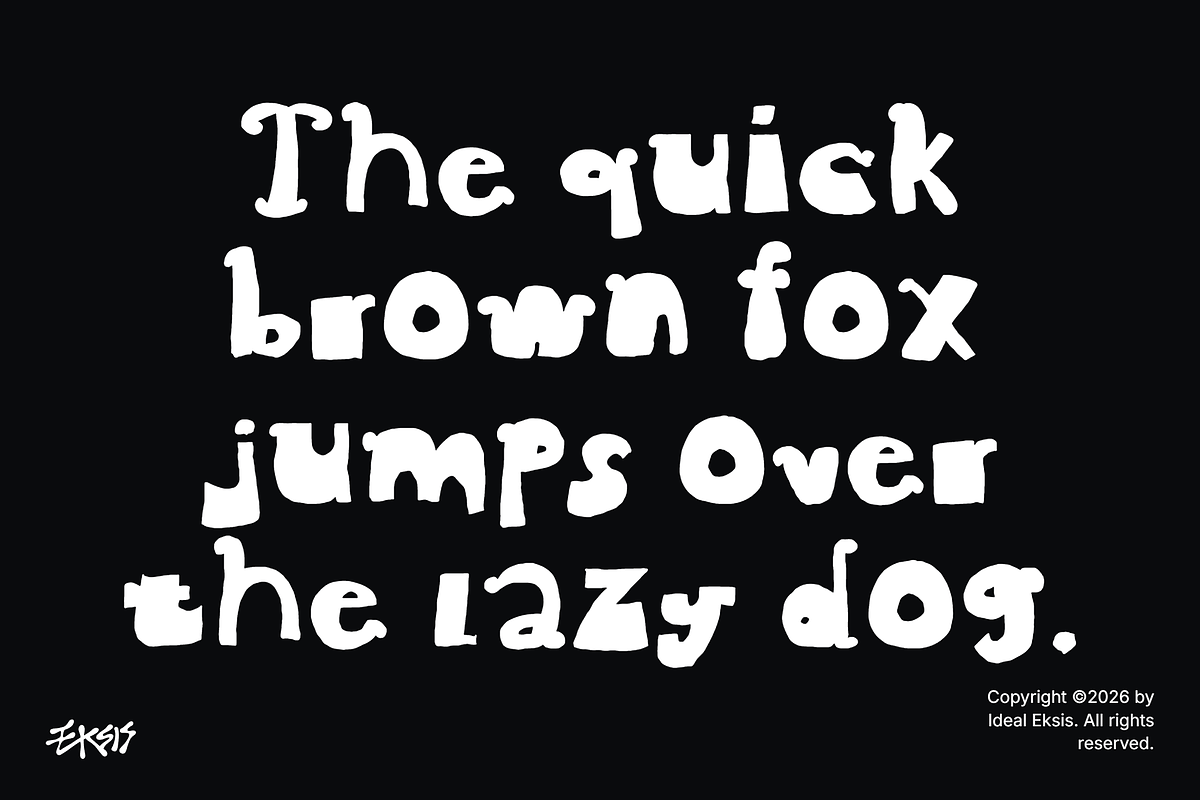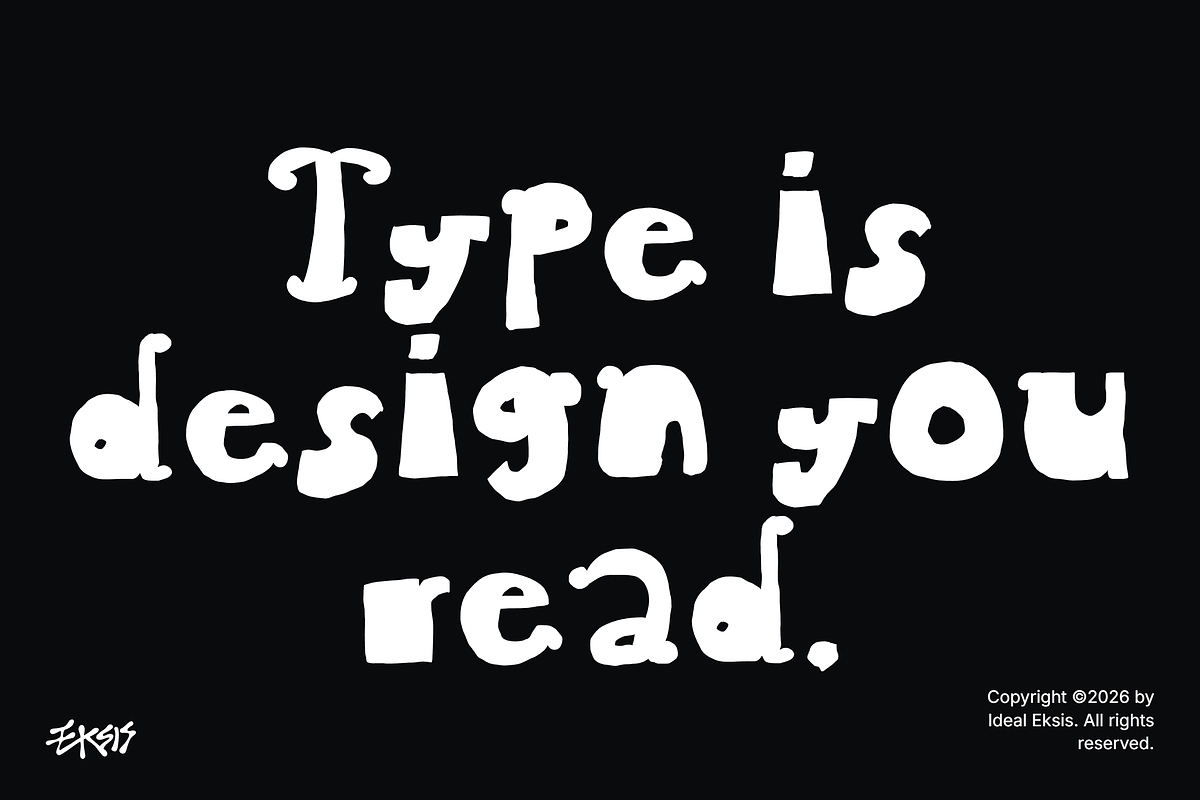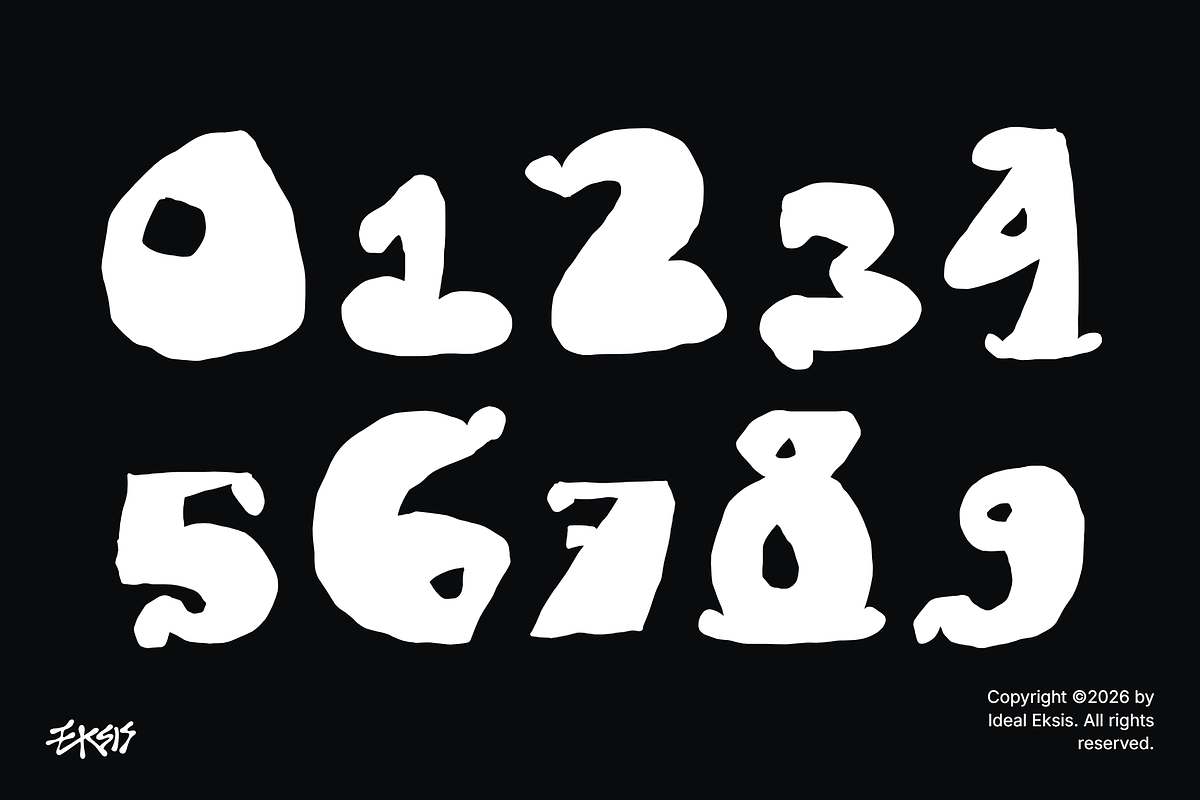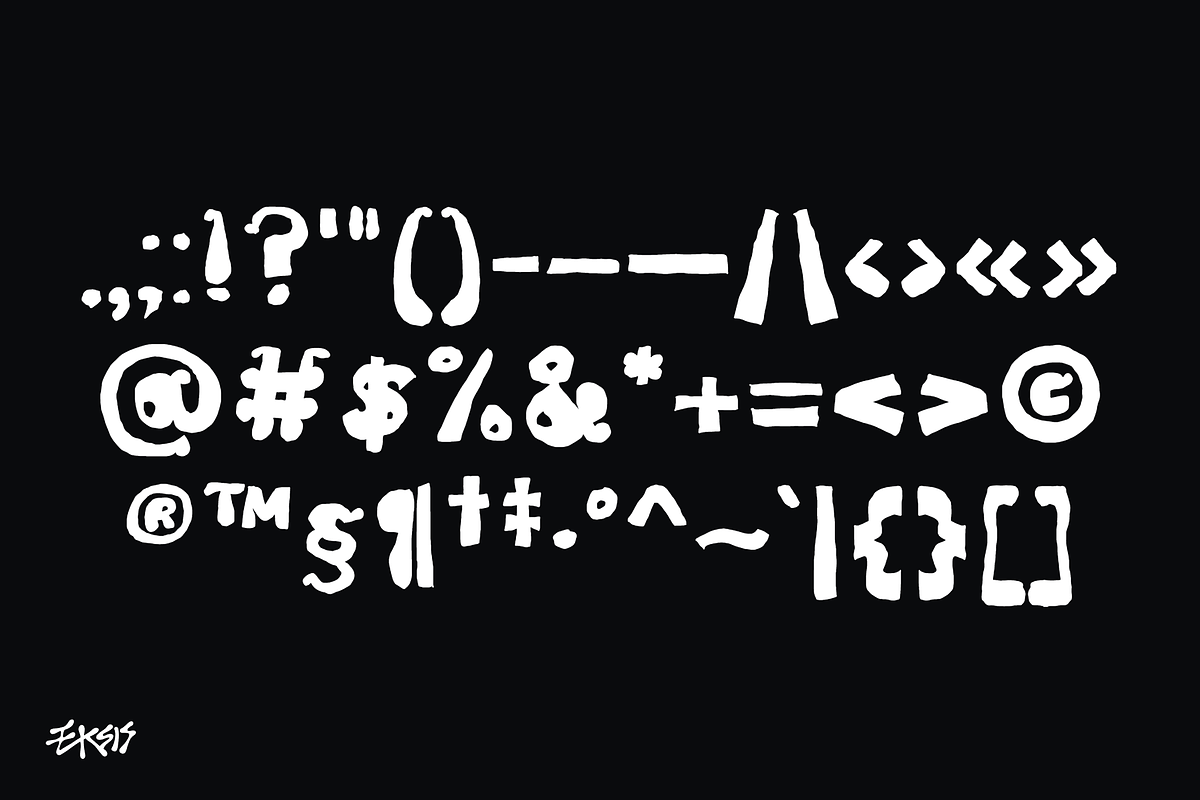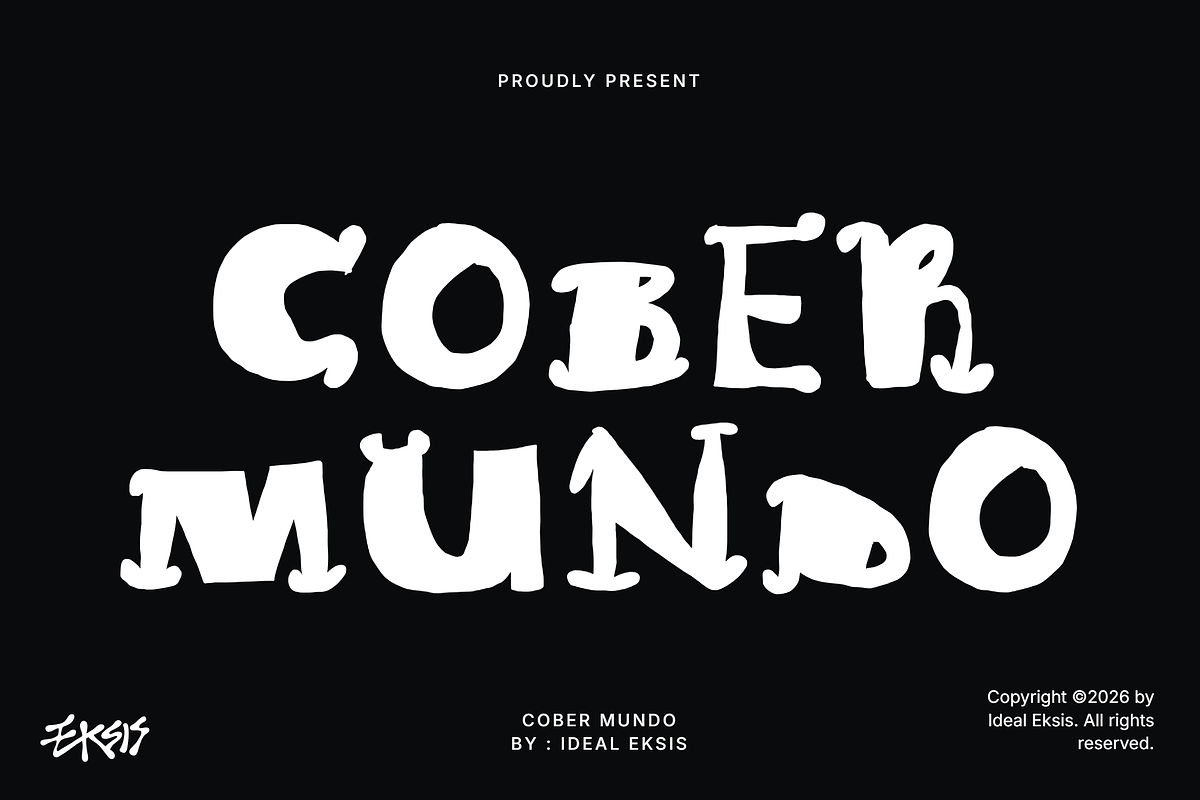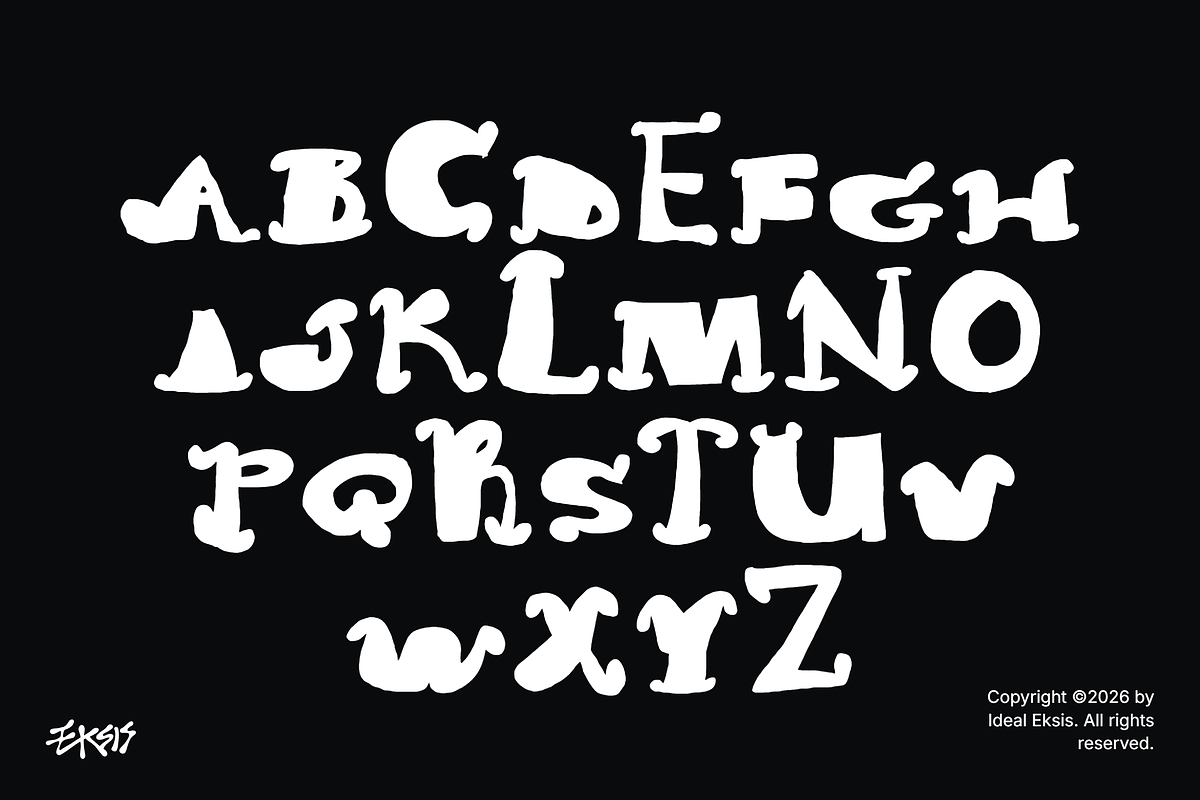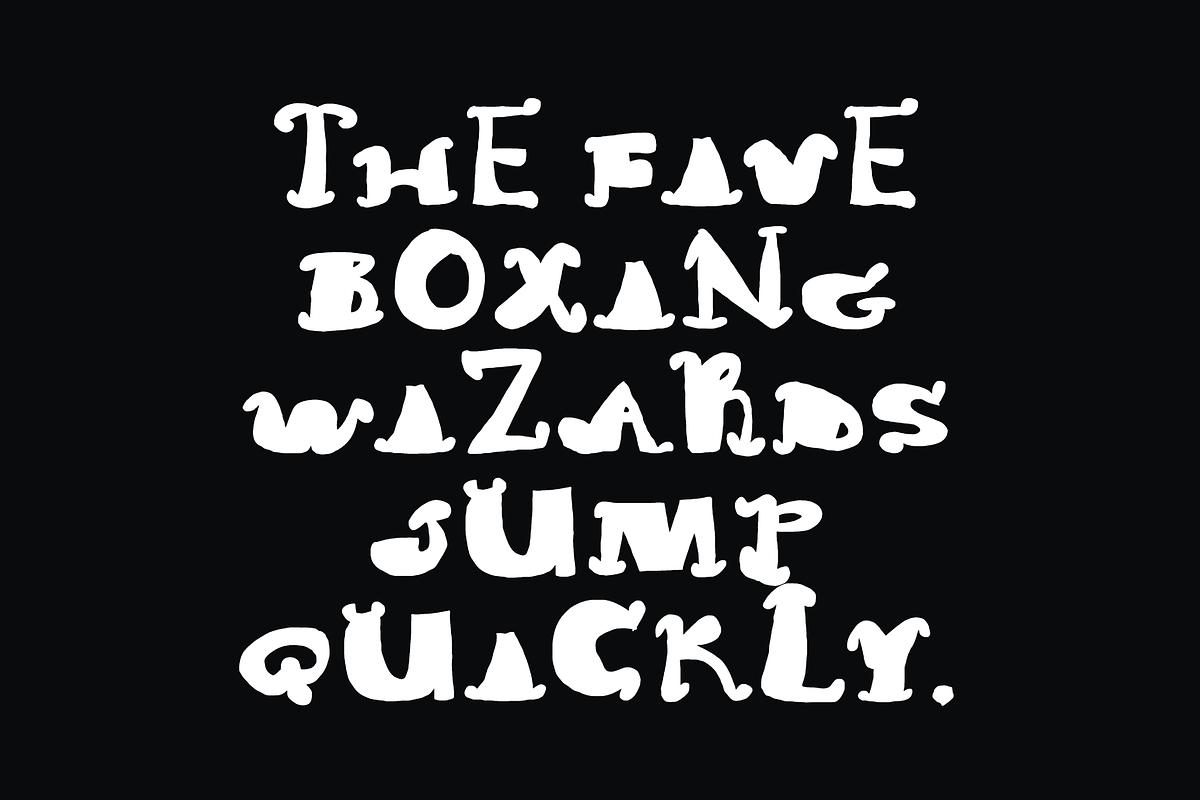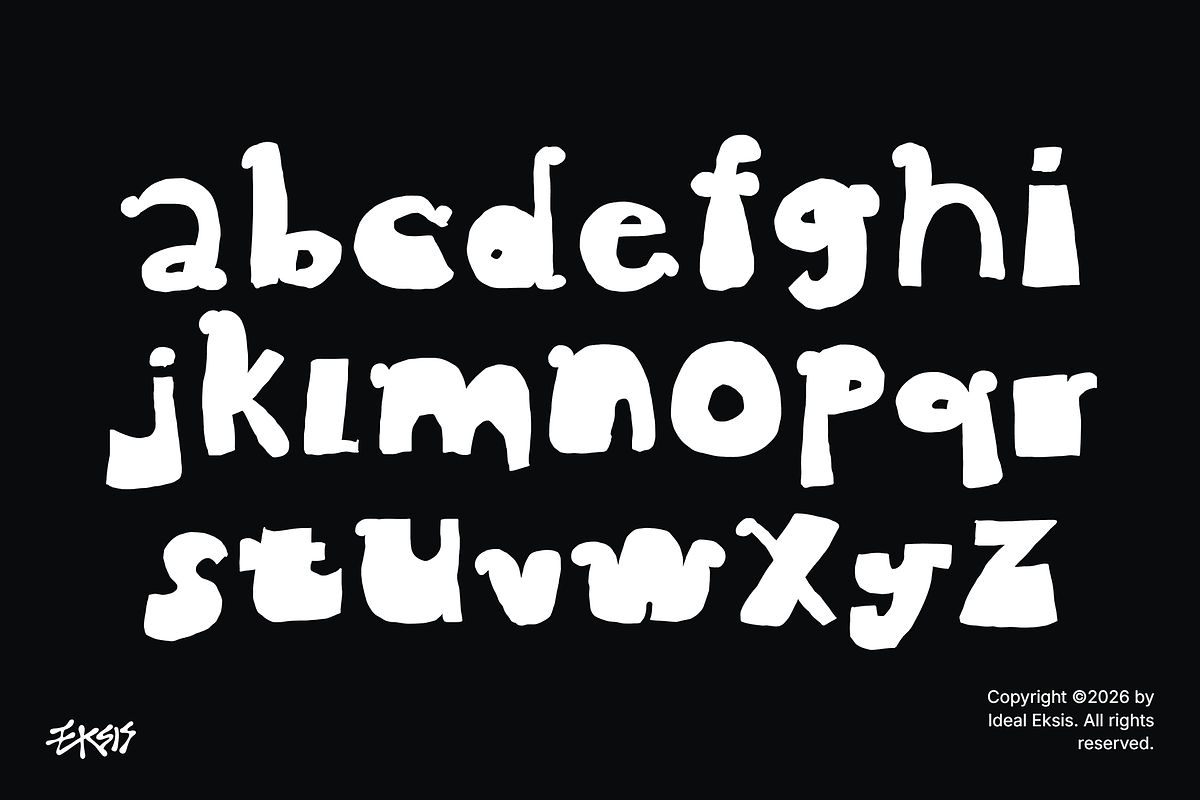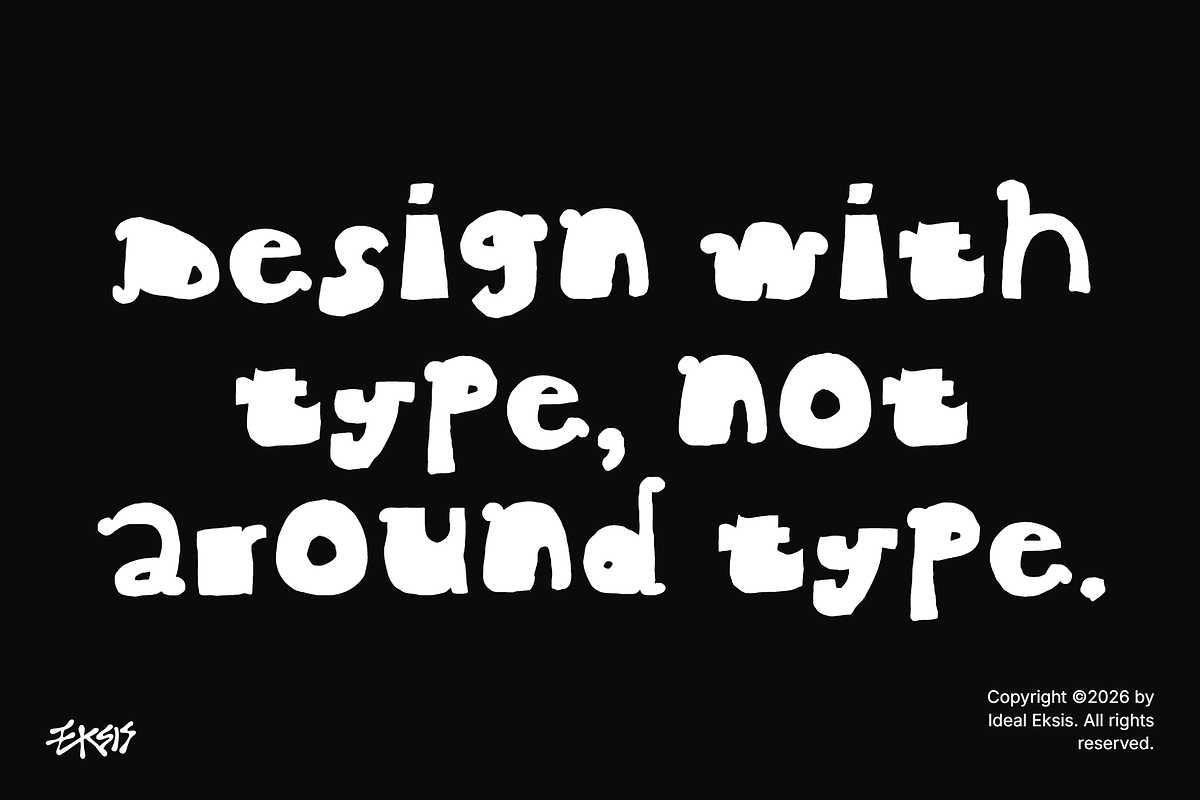
Cober Mundo
Cober Mundo is a fearless display typeface designed by Ideal Eksis that draws inspiration from street murals, graffiti culture, and underground urban art movements. Its massively bold letterforms are defined by thick, irregular strokes that taper and swell organically, creating a hand-crafted imperfection that feels authentic and alive. The distinctive claw-like terminals and mixed character heights give it a wild, unpredictable rhythm that demands attention on any surface.